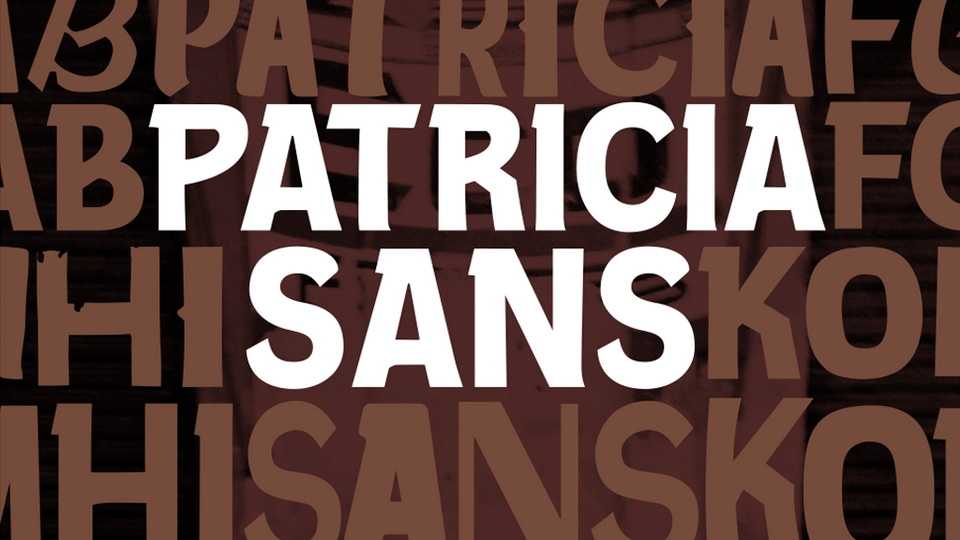
Download Patricia Sans font, a sans serif typeface with an urban plastic profile inspired by street signs and advertisements. Patricia Sans was produced as a result of a typographic workshop to celebrate the first anniversary of the Lettrástica Festival, in Guadalajara, Jalisco.
Designer: Raúl Plancarte